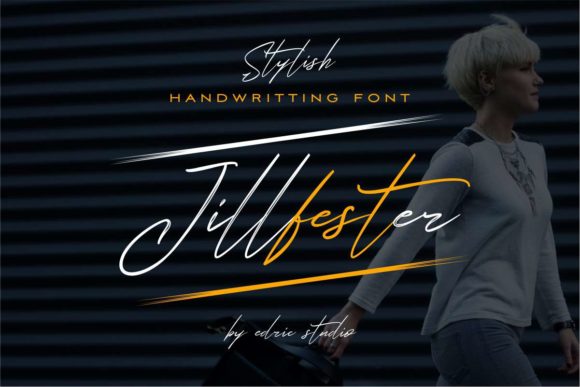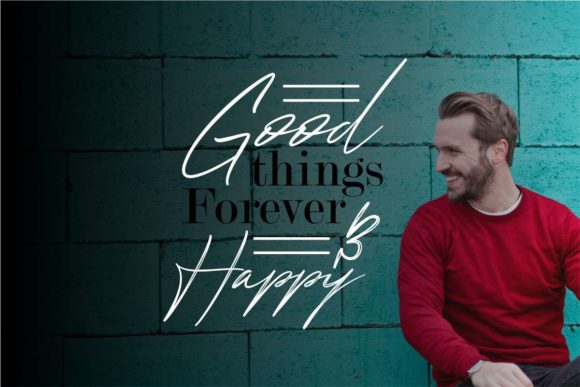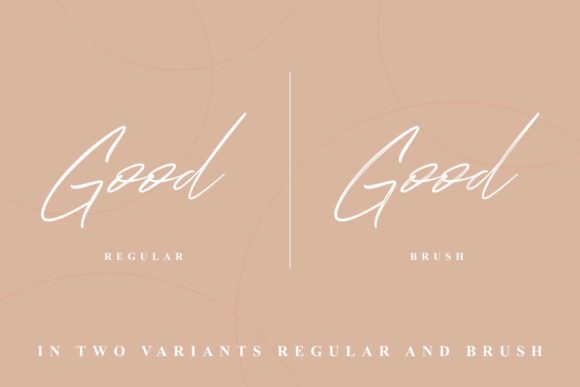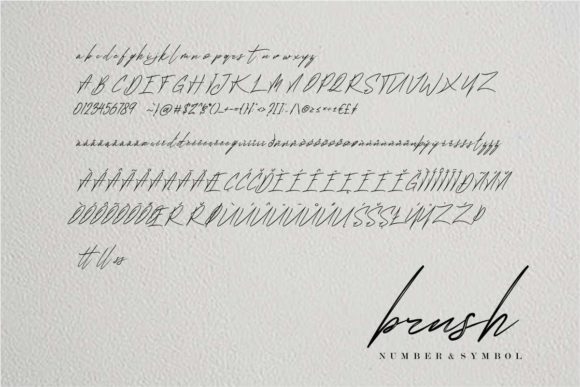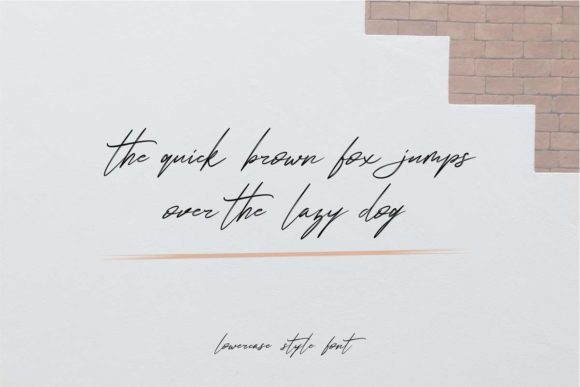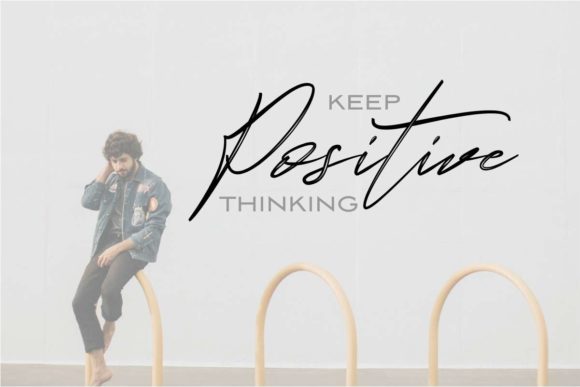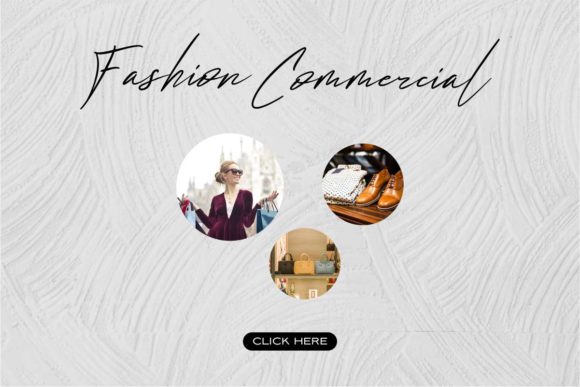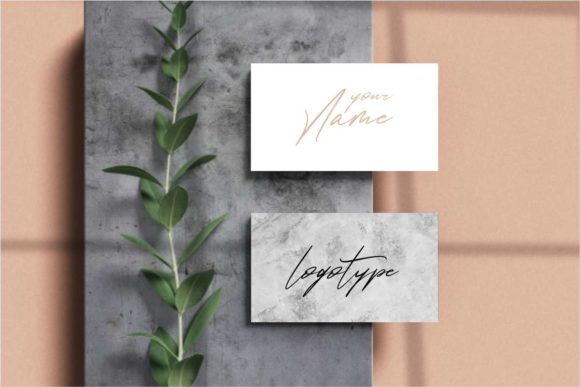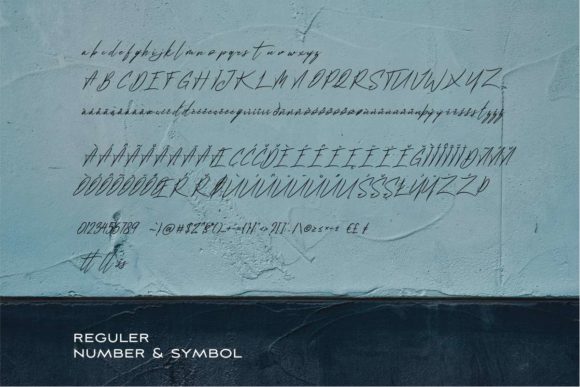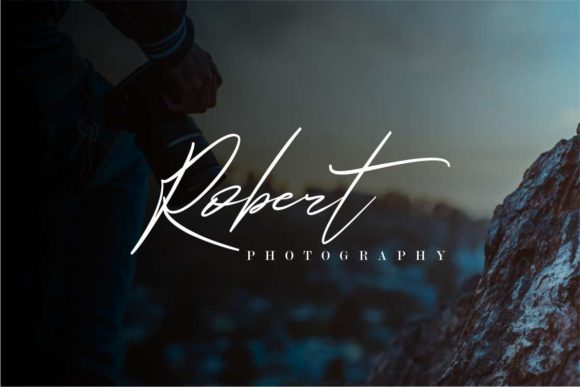
HomeScript FontsJillfester Font Script Fonts Jillfester Font FacebookXPinterestWhatsApp Jillfester Font Poster 2 Jillfester Font Poster 3 Jillfester Font Poster 4 Jillfester Font Poster 5 Jillfester Font Poster 6 Jillfester Font Poster 7 Jillfester Font Poster 8 Jillfester Font Poster 9 Jillfester Font Poster 10 About Jillfester Font Jillfester is a light and charming script full of life. Get inspired by its versatile charm! DOWNLOAD ON CREATIVE FABRICAThis font is sold and delivered by Creative Fabrica. Font Canyon may earn a commission if you buy through this link. People also explored Tisarellia Font Christmas Planner Font Golhem Font Blessings Font Maxy More Font Girly Font Crownzone Font Lovely Valentine Font Cheesy Broccoli Font 319 0 TagsJillfester Font Previous articleAghmeeta FontNext articleDevllin Font LEAVE A REPLY Cancel reply Comment: Please enter your comment! Name:* Please enter your name here Email:* You have entered an incorrect email address! Please enter your email address here Website: Save my name, email, and website in this browser for the next time I comment. Personal Use Free Eits Personal Use Free Read more about this font Evensong Hollow Personal Use Free Read more about this font Love Baby Personal Use Free Read more about this font BD Geminis Personal Use Free Read more about this font BLOG Free vs Paid Fonts: Why Investing in Premium Fonts Is Worth It Free vs Paid Fonts: Why Premium Fonts Are Worth It in 2025 The debate of free vs paid fonts continues in the design world. While... 5 Fonts That Will Dominate Design Trends in 2026 The 10 Best Handwriting Fonts to Add Personality to Your Designs Free Fonts Risk: Why Free Fonts Can Be Dangerous for Designers